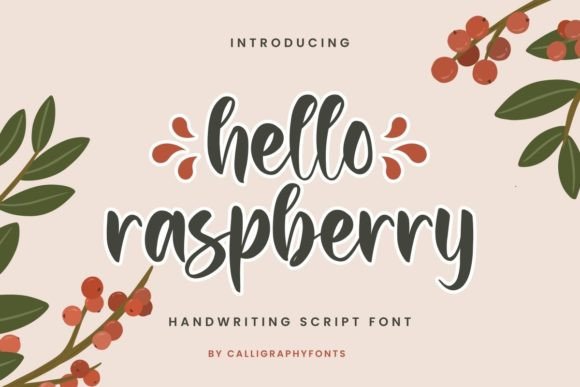
Introducing Hello Raspberry Font: The Refreshing Handwriting Script That Will Elevate Your Creative Projects!
In a world where fonts often blend together, Hello Raspberry Font stands out as a burst of delightful originality. This enchanting script, inspired by the vibrant spirit of raspberries, is a tribute to the beauty of handwritten artistry. Its whimsical curves and playful characters bring a touch of whimsy and charm to any design, making it the perfect choice for those seeking a font that speaks to their creative soul.
With Hello Raspberry Font, you can turn your creative visions into captivating realities. Its versatility extends across diverse industries, from the sweet indulgence of bakeries to the warmth of cooking classes and the delicate artistry of florists. Whether you're crafting eye-catching logos, designing luscious ice cream labels, or creating packaging that exudes elegance, Hello Raspberry Font will transform your designs into masterpieces that captivate and inspire.
Imagine the allure of a billboard adorned with the flowing letters of Hello Raspberry Font, inviting passersby to embark on a culinary adventure. Envision the charm of a recipe book adorned with this delightful script, each page a testament to your passion for food and artistry. Let your quotes take on a new life, rendered in the elegant strokes of Hello Raspberry Font, their messages amplified by the font's innate eloquence.
Hello Raspberry Font is more than just a collection of characters; it's an invitation to express your creativity and let your imagination run wild. Its carefully crafted letters, meticulously designed to create perfection in every stroke, add a touch of sophistication and elegance to any project. And with its easy-to-read, swooshing characters, Hello Raspberry Font ensures that your designs will not only captivate the eye but also leave a lasting impression on the heart.